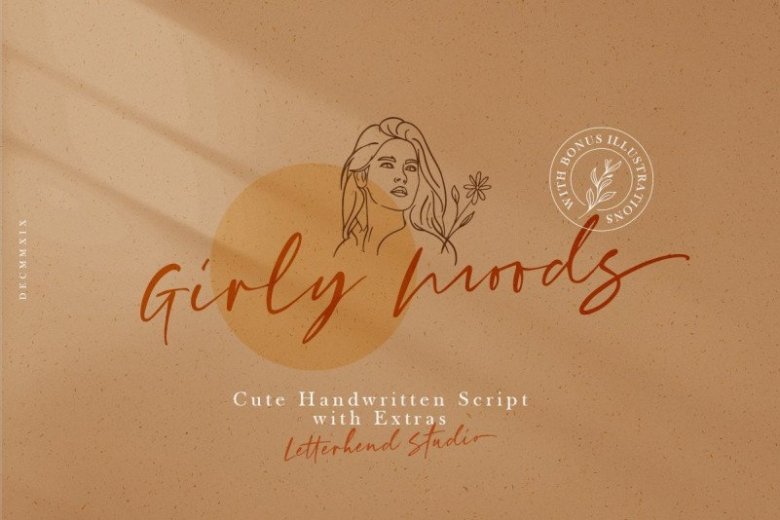
Girly Moods Script Font
Girly Moods Font is a cute handwritten font. Decorative and handwritten or creative style script font for your new projects. With multi language support and lot of stylistic alternates & swashes. It’s designed and shared by Letterhend Studio.
A Cute Handwritten Script with extras. This typeface feminine touch with natural handwritten calligraphy. You will also get bonus illustration in vector format.
Girly Moods Script perfectly made to be applied especially in logo, and the other various formal forms such as invitations, labels, logos, magazines, books, greeting / wedding cards, packaging, fashion, make up, stationery, novels, labels or any type of advertising purpose.